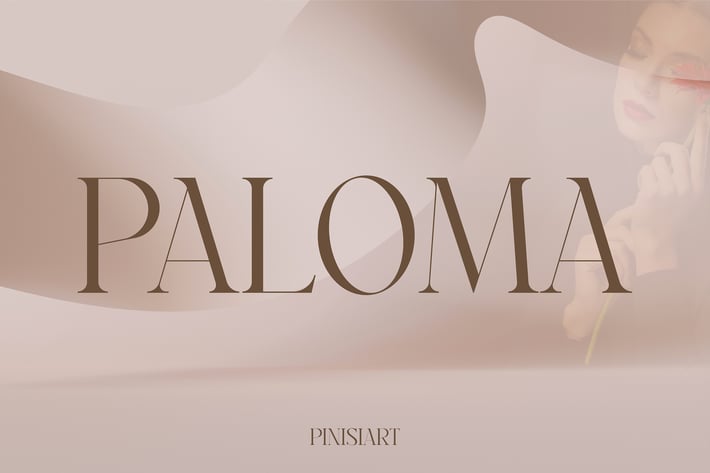
Fashion Font - Paloma
Instagram Font PALOMA: Elegant and Timeless Serif for Premium Projects
PALOMA is a refined serif font that blends clean lines with smooth curves, delivering a touch of luxury to any design. Perfect for branding, social media, fashion, beauty, and lifestyle projects, it offers timeless sophistication while ensuring easy readability with balanced spacing.
PALOMA’s versatile design works for bold headlines, delicate captions, logos, product packaging, and invitations. It’s a top choice for influencers, bloggers, content creators, and designers aiming to create polished, professional visuals. The font seamlessly elevates both digital and print media, from Instagram posts to premium brochures.
Whether you’re designing for high-end branding, minimalist web layouts, or personal projects, PALOMA provides a stylish, modern finish that lasts. Its timeless appeal makes it an essential tool for creatives looking to achieve understated elegance across various applications.
Market Applications:
Branding, logos, product packaging, and invitations
Social media posts, Stories, and lifestyle content
Fashion, beauty, and luxury designs
Minimalist web layouts and personal branding